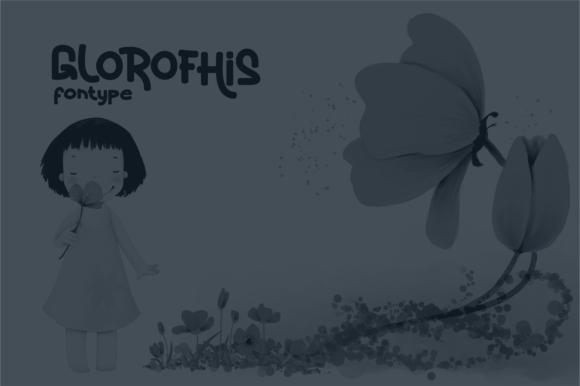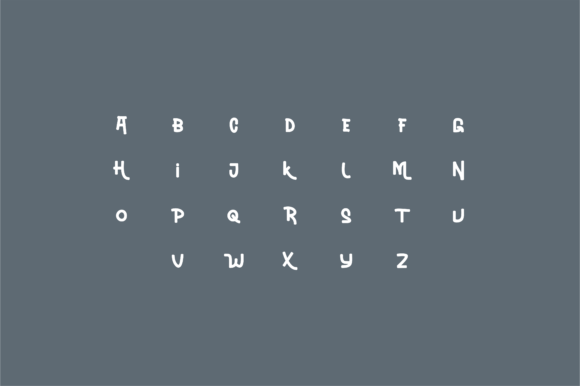
Glorofhis Font: The Ultimate Urban Styled Display Font for Crafty Designs
Are you a designer or crafter looking for a unique and stylish font to elevate your creative projects? Look no further than Glorofhis Font, a cool and urban styled display font that’s perfect for making a statement. With its original look and versatility, Glorofhis is ideal for a wide range of crafty ideas, from letterheads and titles to stationery and more.
What is Glorofhis Font?
Glorofhis Font is a modern, urban styled display font designed to add a touch of edginess to your designs. Its unique and original look is sure to grab attention and set your projects apart from the rest. Whether you’re working on a logo, brochure, or social media graphics, Glorofhis Font is the perfect choice for designers and crafters who want to make a bold statement.
Key Features of Glorofhis Font
• Urban Styled Design: Glorofhis Font boasts a sleek and modern design that’s perfect for urban-inspired projects.
• Display Font: This font is specifically designed for display purposes, making it ideal for headlines, titles, and other attention-grabbing elements.
• Crafty and Versatile: Glorofhis Font can be used for a wide range of crafty ideas, from letterheads and stationery to logos and social media graphics.
• Original Look: With its unique and original design, Glorofhis Font is sure to add a touch of personality to your projects.
Glorofhis Font is a must-have for designers and crafters who want to add a touch of urban style to their projects. Whether you’re working on a commercial project or a personal craft, this font is sure to inspire your creativity and help you create something truly unique.
• Logos and Branding: Use Glorofhis Font to create a bold and eye-catching logo that sets your brand apart.
• Stationery and Letterheads: Add a touch of urban style to your stationery and letterheads with Glorofhis Font.
• Social Media Graphics: Use Glorofhis Font to create attention-grabbing social media graphics that showcase your brand’s personality.
• Brochures and Flyers: Add a touch of edginess to your brochures and flyers with Glorofhis Font.
Why Choose Glorofhis Font?
There are many fonts to choose from, but Glorofhis Font stands out from the rest. Here are just a few reasons why:
• Unique Design: Glorofhis Font has a unique and original design that’s sure to grab attention.
• Versatility: This font can be used for a wide range of projects, from logos and branding to stationery and social media graphics.